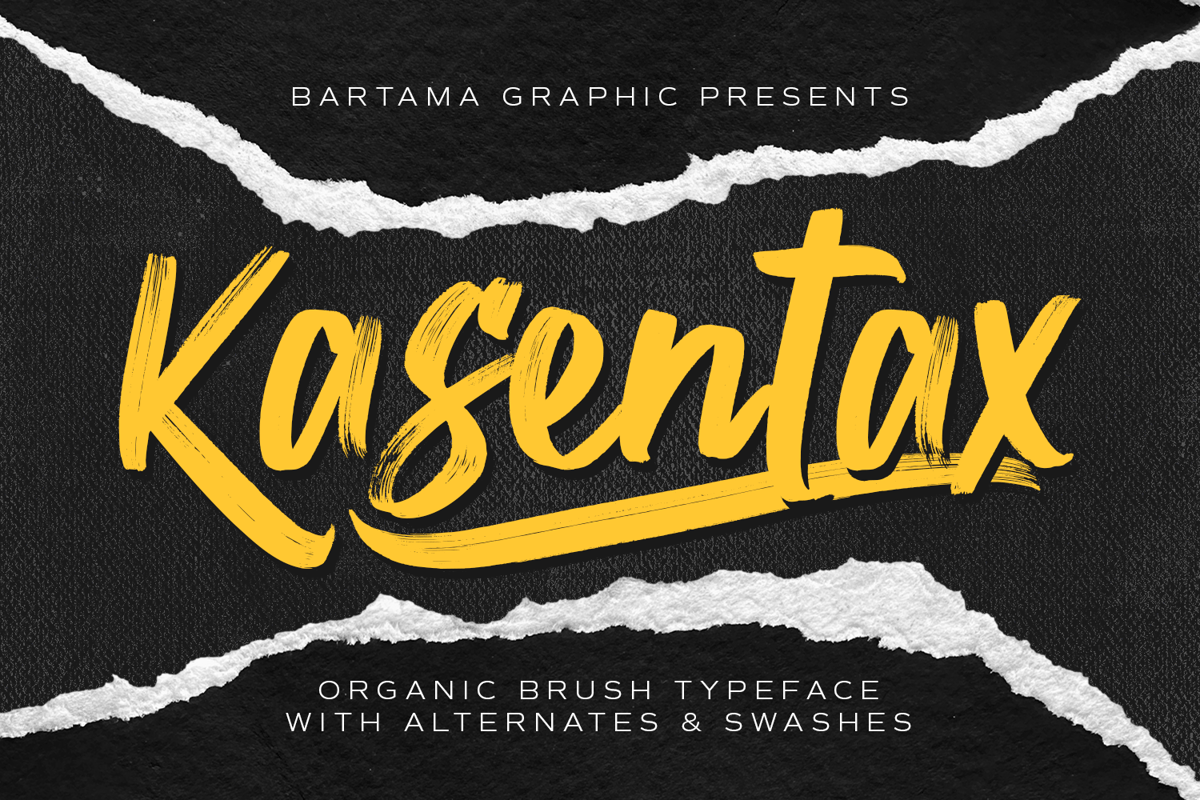
Kasentax - Brush Font
Kasentax brush font brings a sense of creativity, authenticity, and energy to any design you create. With its organic texture and natural imperfections. Perfect for branding and logo, social media, posters, advertisements, invitations, and many more.
- Ligature
- Multilingual Support